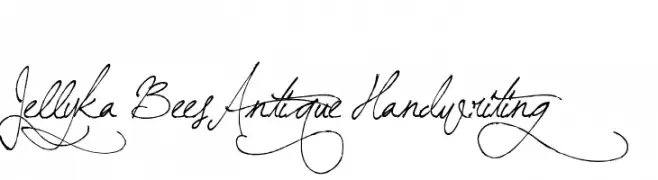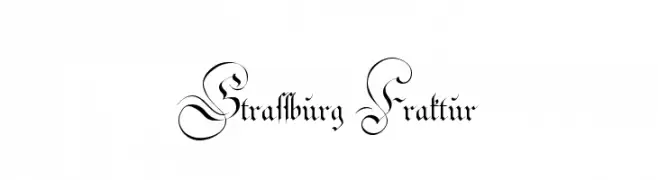
A bold, blackletter font with sharp, angular lines and intricate detailing.
An ornate and decorative blackletter font with elaborate flourishes.
A bold, slab serif font with a vintage yet modern appeal.
An elegant and sophisticated script font with high contrast and ornate flourishes.
A playful, hand-drawn font with a whimsical and sketch-like appearance.
An elegant, antique-style cursive font with intricate loops and swirls.
A bold slab serif font with strong, block-like serifs and a vintage-modern appeal.
A symbolic collection of icons blending peace and conflict themes.
A pictorial font featuring diverse animal and insect illustrations as glyphs.